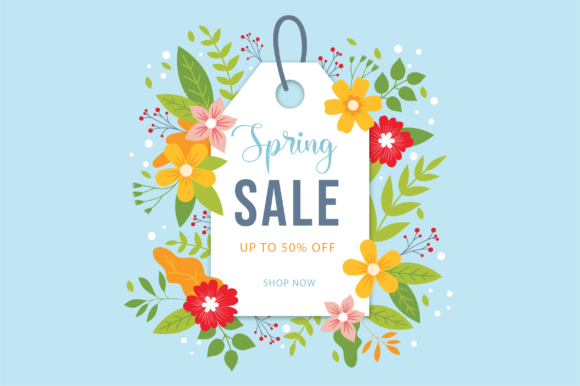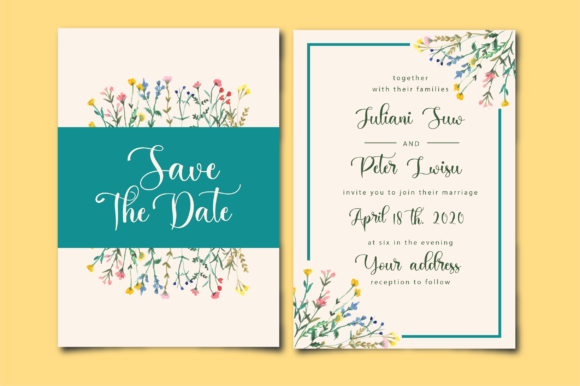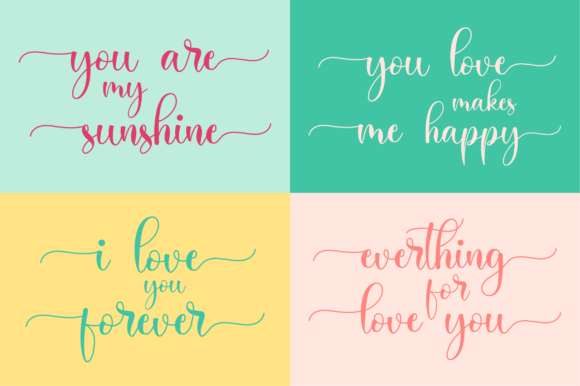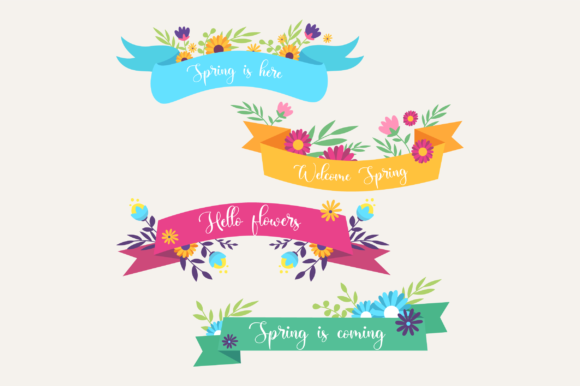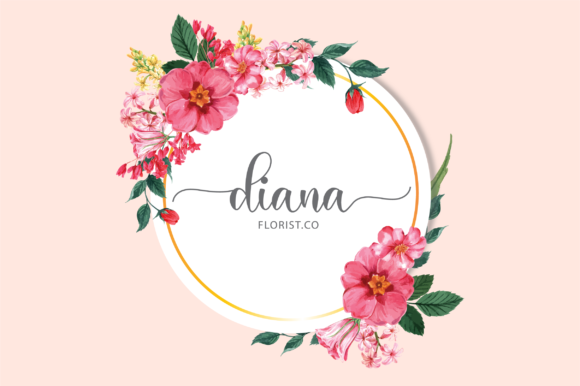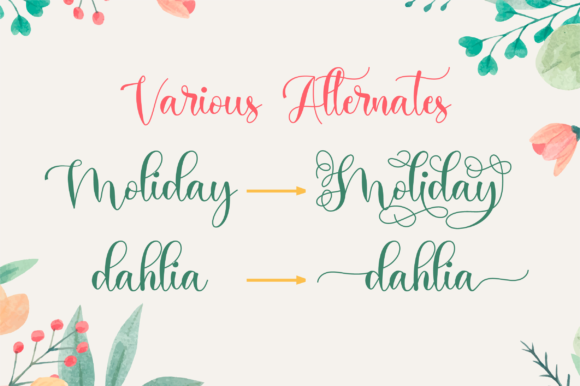
Get Ready to Fall in Love with the Holiday Spirit
There’s nothing quite like the feeling of being in the midst of a creative project, surrounded by papers, paints, and all the tools of the trade. As you sit down to design a special invitation or card, the possibilities seem endless, and your imagination runs wild. And then, it hits you – the perfect font to bring your vision to life. For many of us, that font is the Holiday Font, with its beautiful and elegant script that exudes an authentic feel.
The Holiday Font is more than just a pretty face; it’s a valuable tool for designers looking to add a touch of sophistication and whimsy to their projects. With its PUA encoding, you can easily access all of the cute glyphs and swashes, making it perfect for creating gorgeous wedding invitations, beautiful stationery art, and eye-catching social media posts.
Holiday Font Key Features
• Font Family: Holiday Font is a unique, hand-drawn font family designed specifically for the holiday season.
• Resolution: Supports high-resolution printing, making it ideal for print materials such as greeting cards, gift tags, and invitations.
• Unique Characteristics: Features a playful, whimsical design with intricate details and ornaments, perfect for adding a festive touch to designs.
• Characters: Includes a comprehensive character set, including uppercase and lowercase letters, numbers, and punctuation marks.
Holiday Font Review
As a designer, I was excited to try out the Holiday Font, thinking it would be the perfect addition to my festive projects. Here’s my honest review.
• Unique and creative flair: The Holiday Font has a quirky, hand-drawn feel that’s perfect for adding a touch of whimsy to your designs.
• Great for headings and titles: The font’s bold, playful style makes it ideal for use in headings and titles, where it can really shine.
• Easy to customize: The font comes in a variety of weights and styles, making it easy to customize to fit your project’s needs.
• Limited character set: The font’s character set is limited, which can make it difficult to use for longer blocks of text.
• Not suitable for body text: While the font is great for headings and titles, it’s not the best choice for body text, as it can be difficult to read in large quantities.
• May not be accessible: The font’s unique style can make it difficult for some users to read, particularly those with visual impairments.
Overall, the Holiday Font is a fun and creative addition to any designer’s toolkit. While it has some limitations, it’s perfect for adding a touch of holiday cheer to your projects. Just be sure to use it judiciously and in the right context.
Use the Holiday Font to add a festive touch to your designs, such as:
• Christmas cards and invitations
• Summer vacation posters and flyers
• New Year’s party invitations and decorations
The Holiday Font is perfect for creating:
• Festive titles and headings
• Seasonal greetings and messages
• Decorative text for parties and events
Alternatives to Holiday Font for Designers
Great Vibes is a modern, elegant script font perfect for adding a touch of sophistication to holiday designs. It’s ideal for wedding invitations, holiday cards, and other special occasion materials.
Compared to Holiday Font, Great Vibes has a more refined and polished look, making it suitable for formal events and high-end designs. It’s also more versatile and can be used for a variety of applications beyond the holiday season.
Carolyna Pro is a luxurious, high-end script font that exudes elegance and sophistication. It’s perfect for designers who want to add a touch of glamour to their holiday designs.
Compared to Holiday Font, Carolyna Pro has a more refined and sophisticated look, making it suitable for high-end designs and special occasions. It’s also more versatile and can be used for a variety of applications beyond the holiday season.
Alex Brush is a beautiful, elegant script font that’s perfect for adding a touch of warmth and personality to holiday designs. It’s ideal for designers who want to create a cozy and inviting atmosphere.
What is the character set for Holiday Font?
Holiday Font includes a comprehensive character set that covers most languages, including Latin, Cyrillic, and Greek. The font includes over 800 glyphs, including standard Latin characters, punctuation marks, and special characters. You can view the full character set in our font documentation or by using a font viewer software.